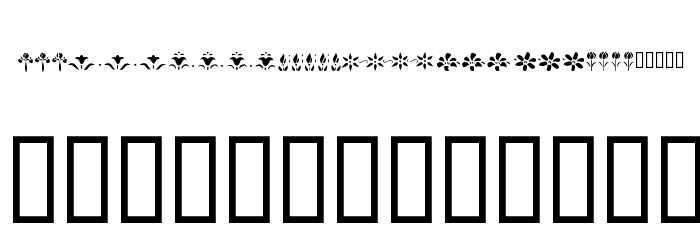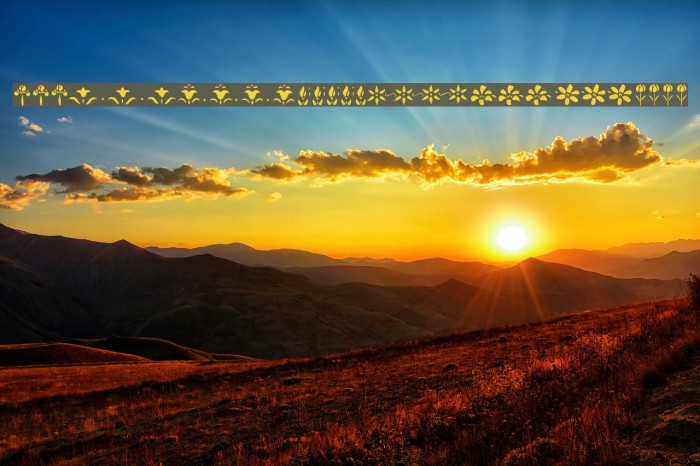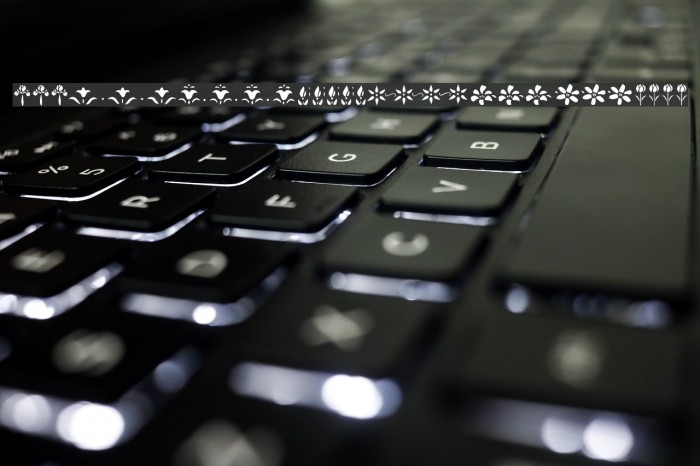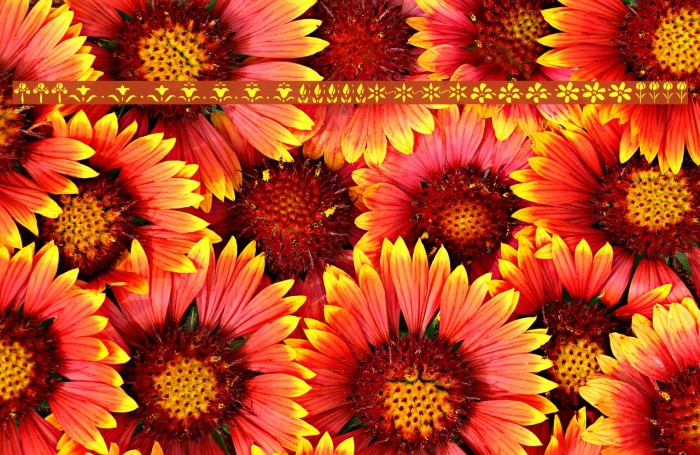
KR Fleur Flair Lines Font
This font is a decorative typeface featuring intricate floral designs. Each character is adorned with unique floral motifs, creating an elegant and artistic appearance. The designs are consistent throughout, offering a cohesive look that is both ornamental and sophisticated. The floral elements are detailed, making this font ideal for projects that require a touch of nature or elegance. It is perfect for decorative purposes, adding a whimsical and charming flair to any design.
A decorative font with intricate floral designs on each character.
- Proposed Projects: Ideal for wedding invitations, greeting cards, decorative posters, and branding that requires an elegant touch.
- Use Case: Logos, Decorative text, Invitations